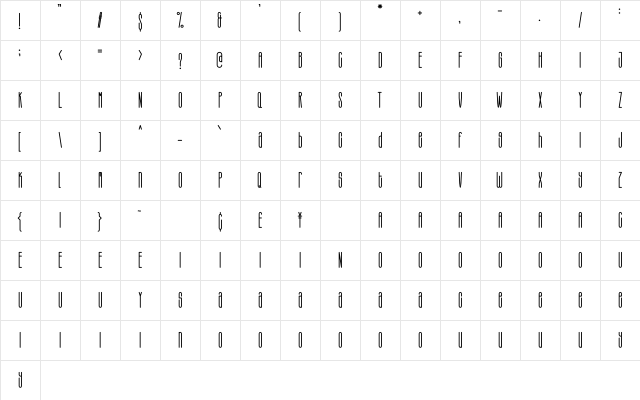
Therlalu - Free Vers Regular
| Foundry | Putracetol Studio |
| Designer | Putra Novembria Candra Kusuma |
Design Context for Therlalu - Free Vers Typeface
Therlalu - Free Vers is a composed and adaptable typeface that performs quietly and consistently across a wide range of design contexts.